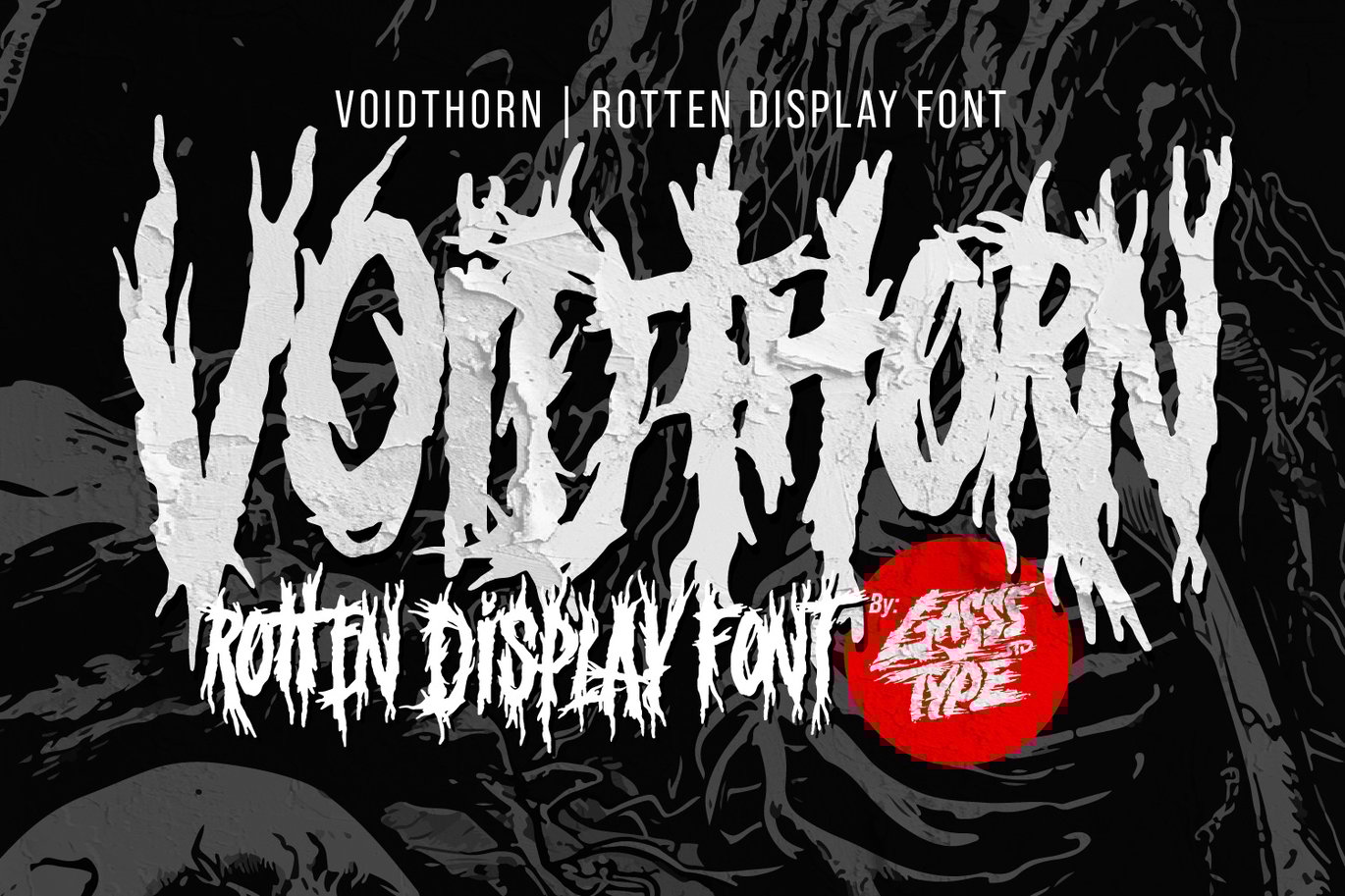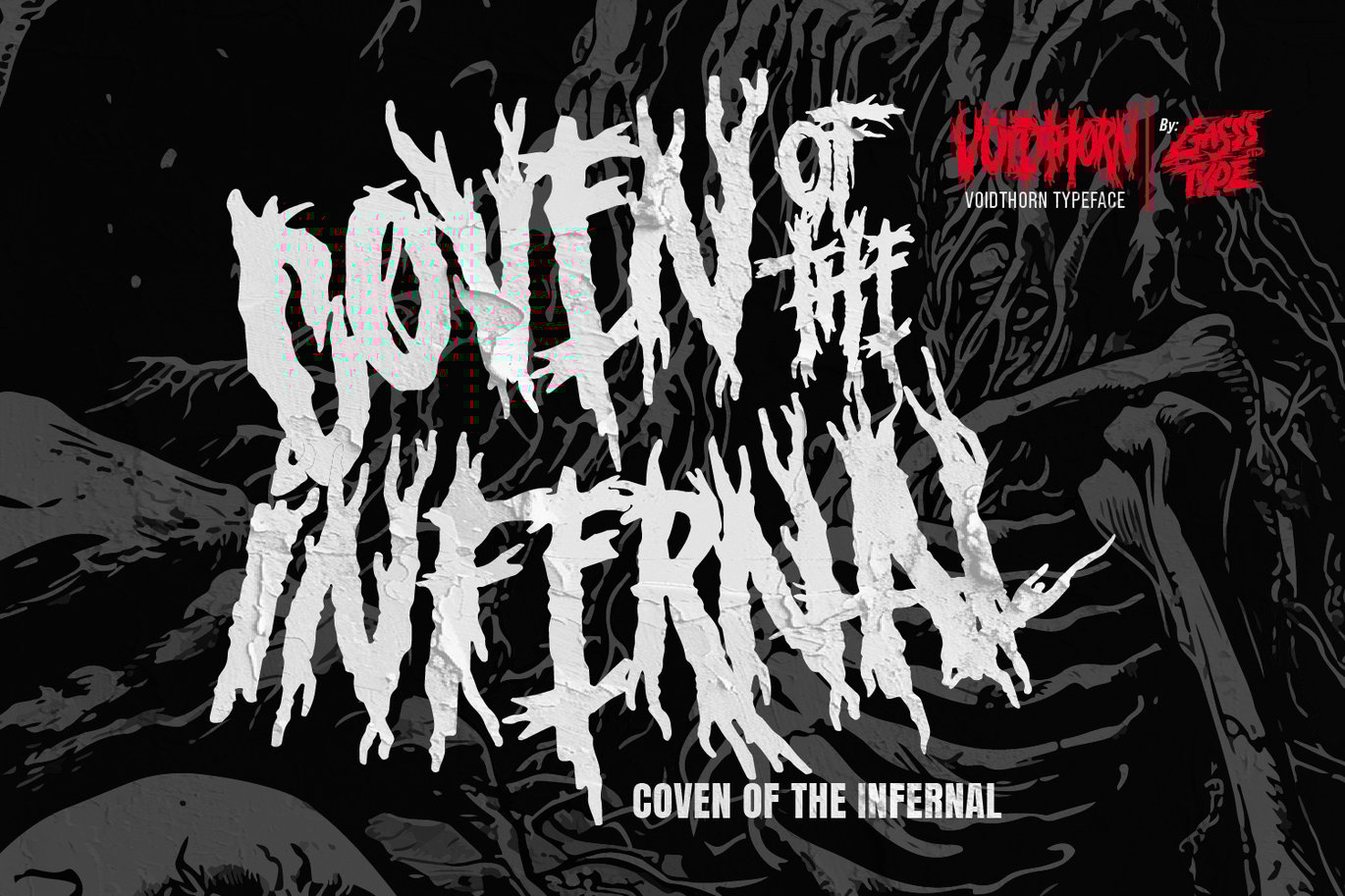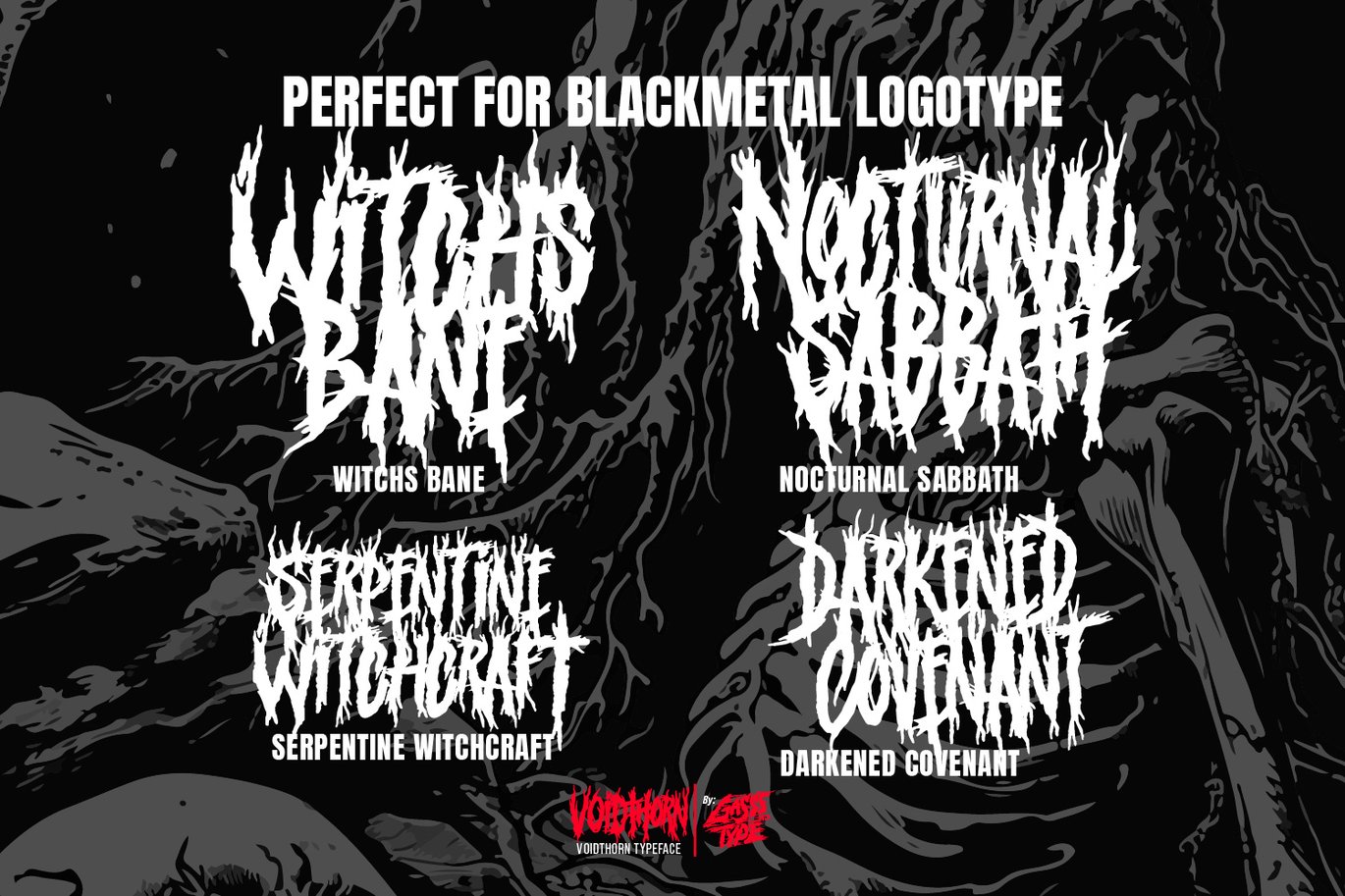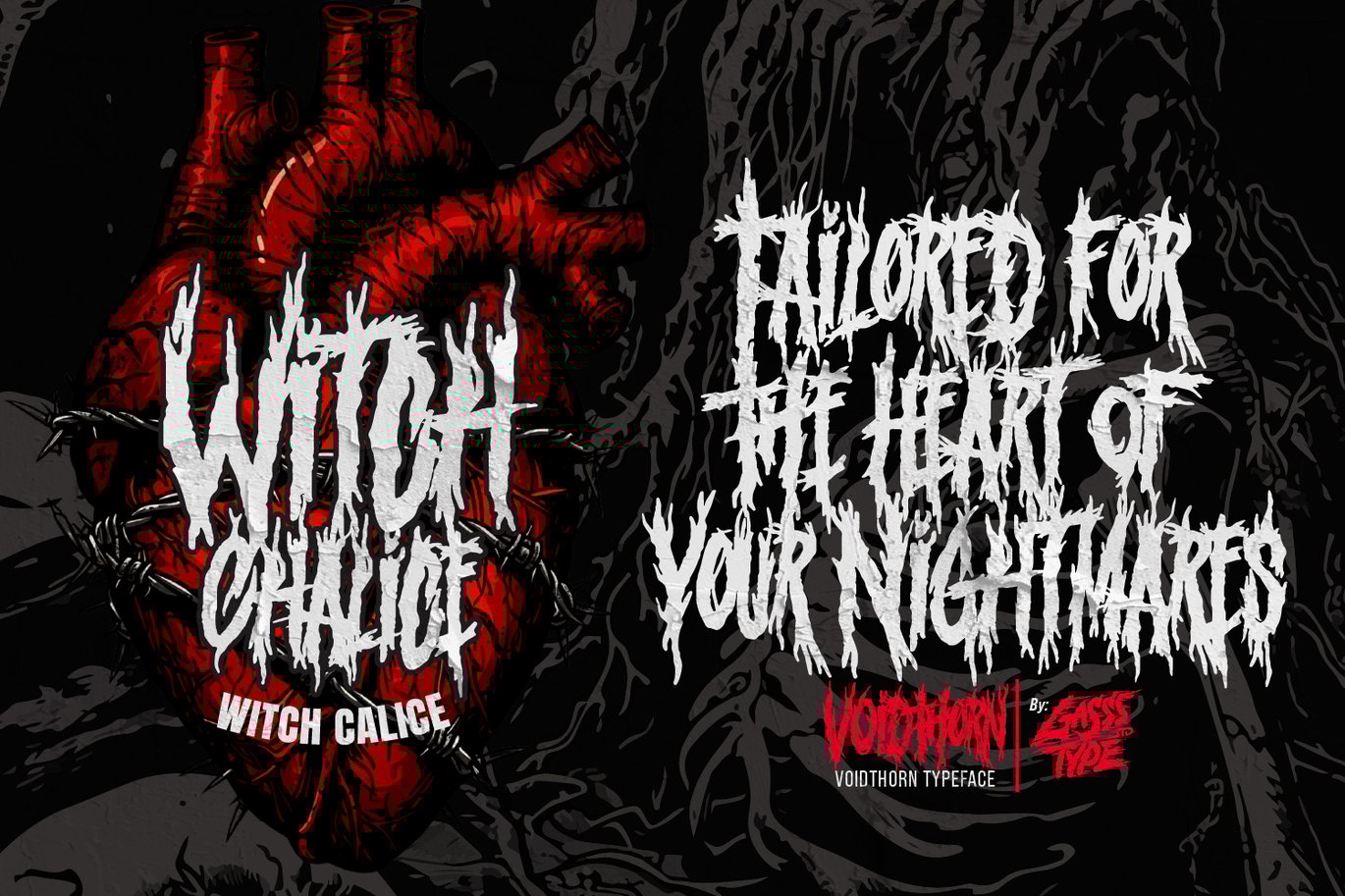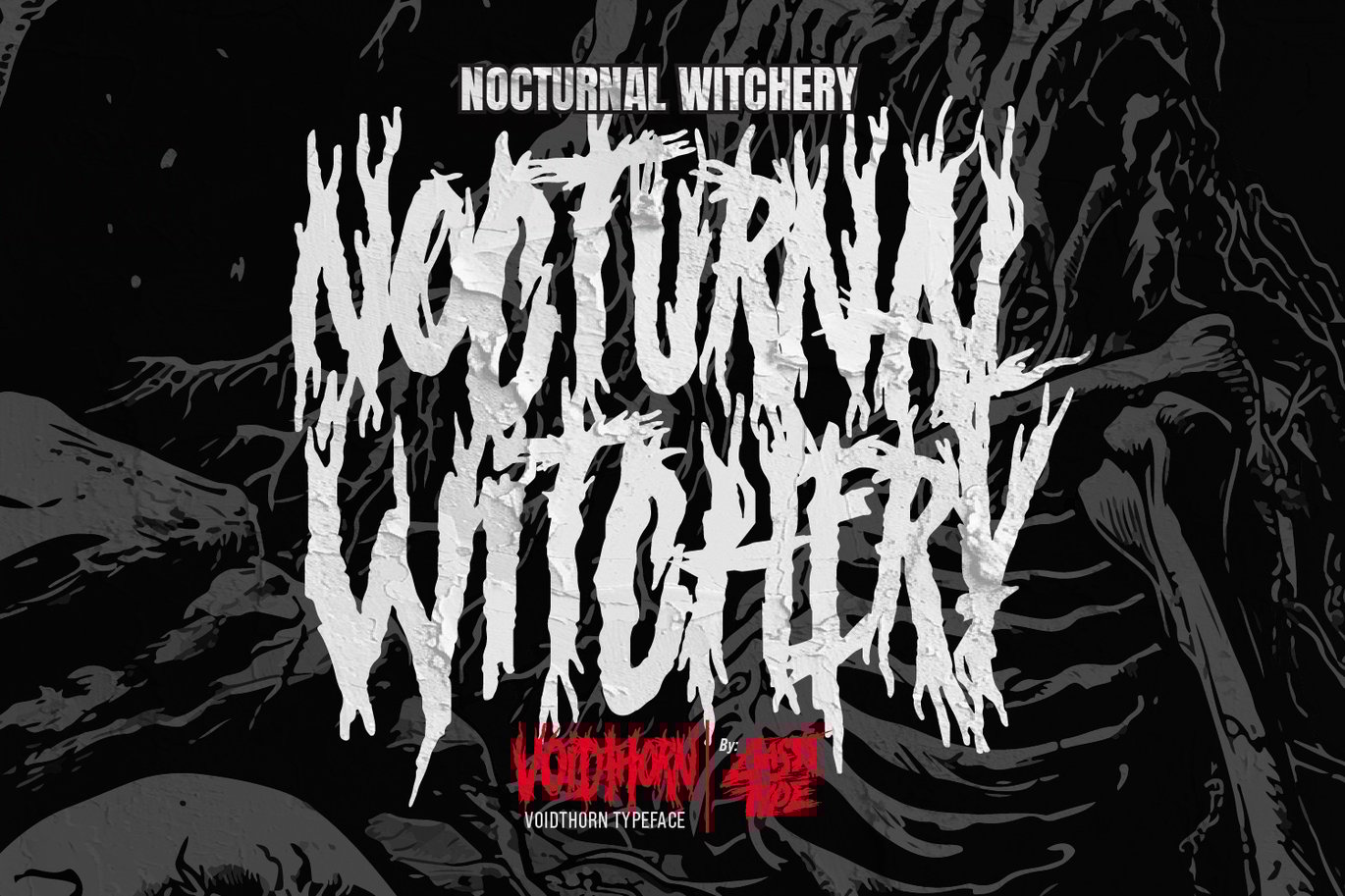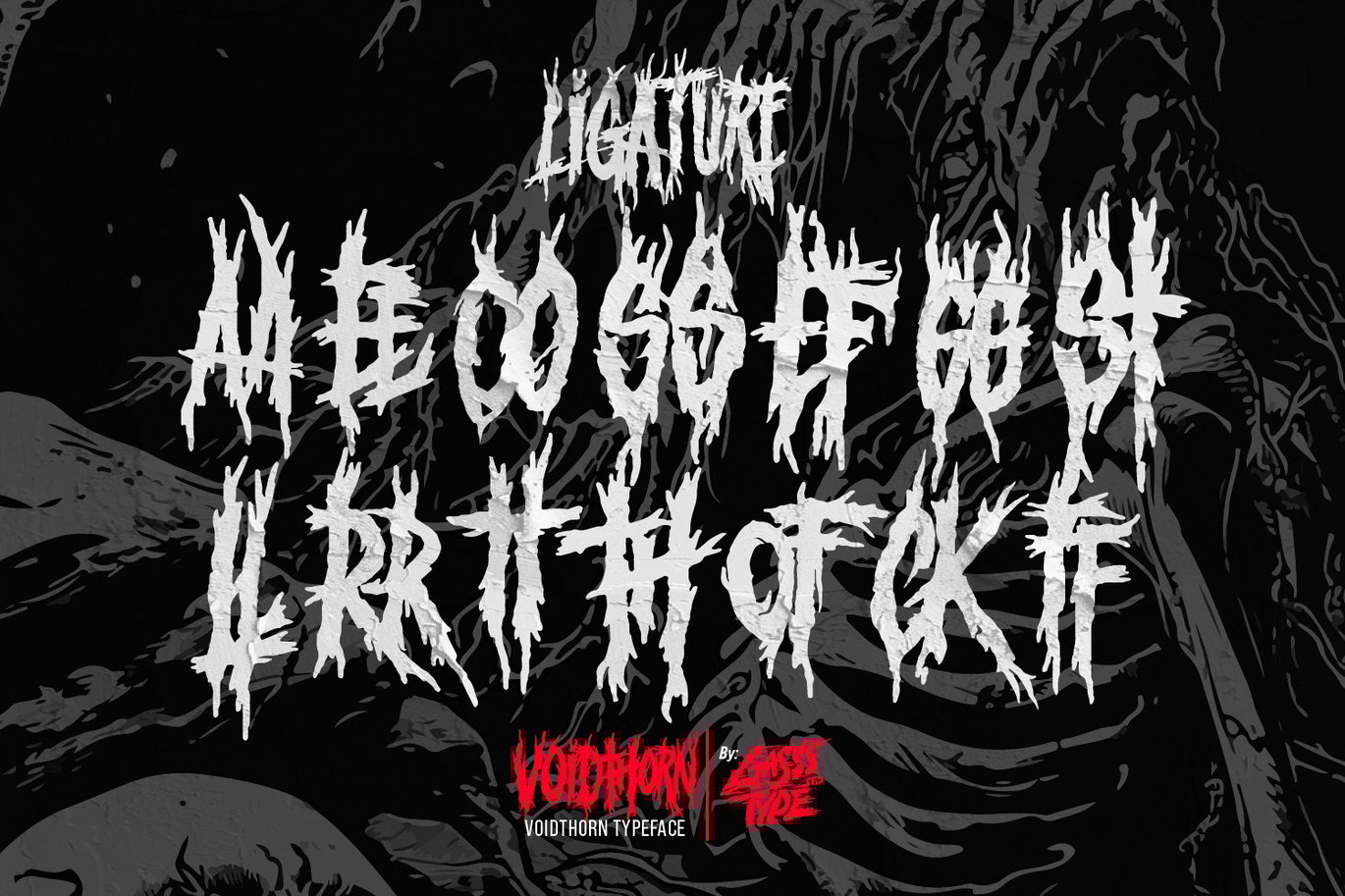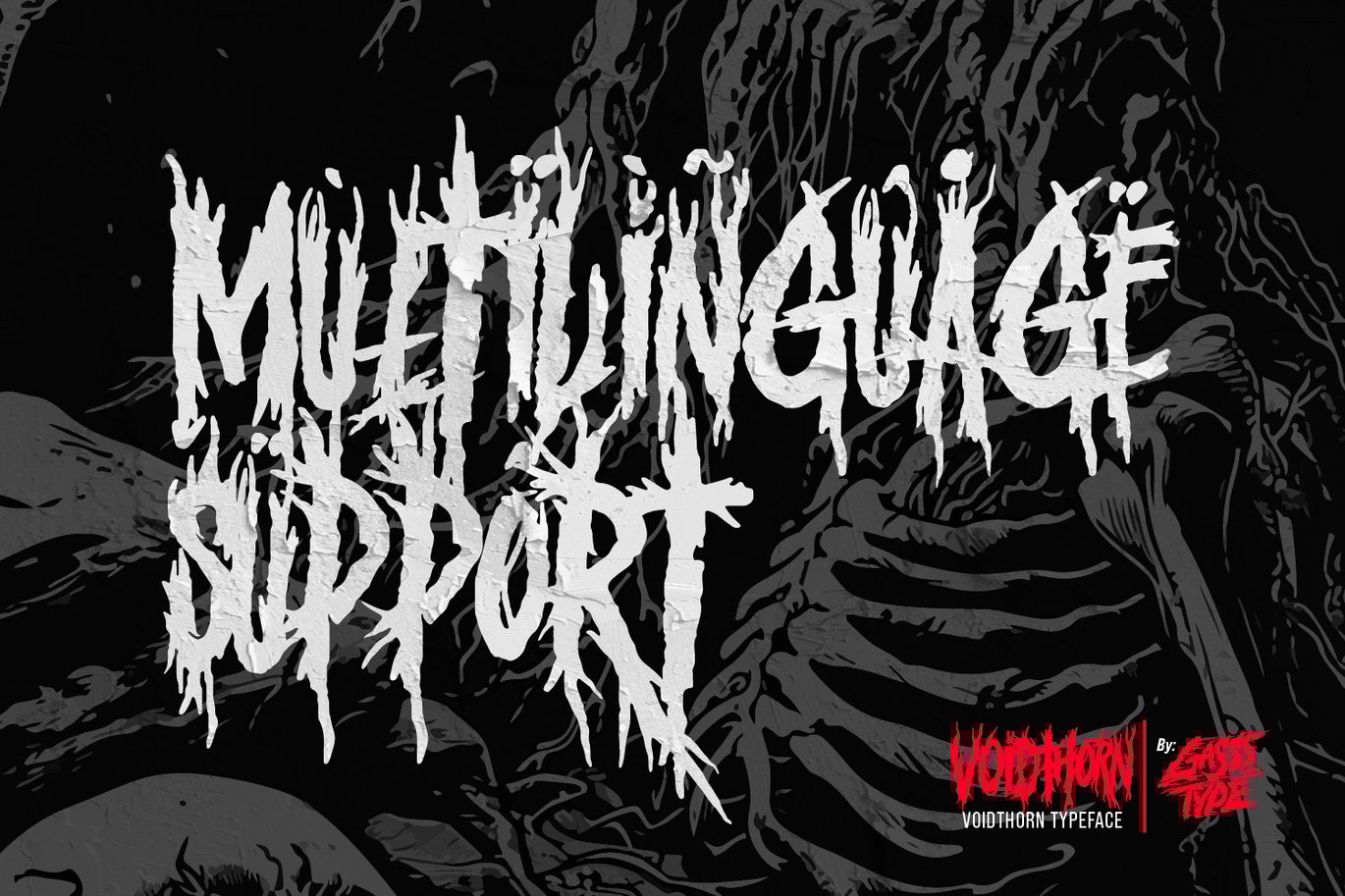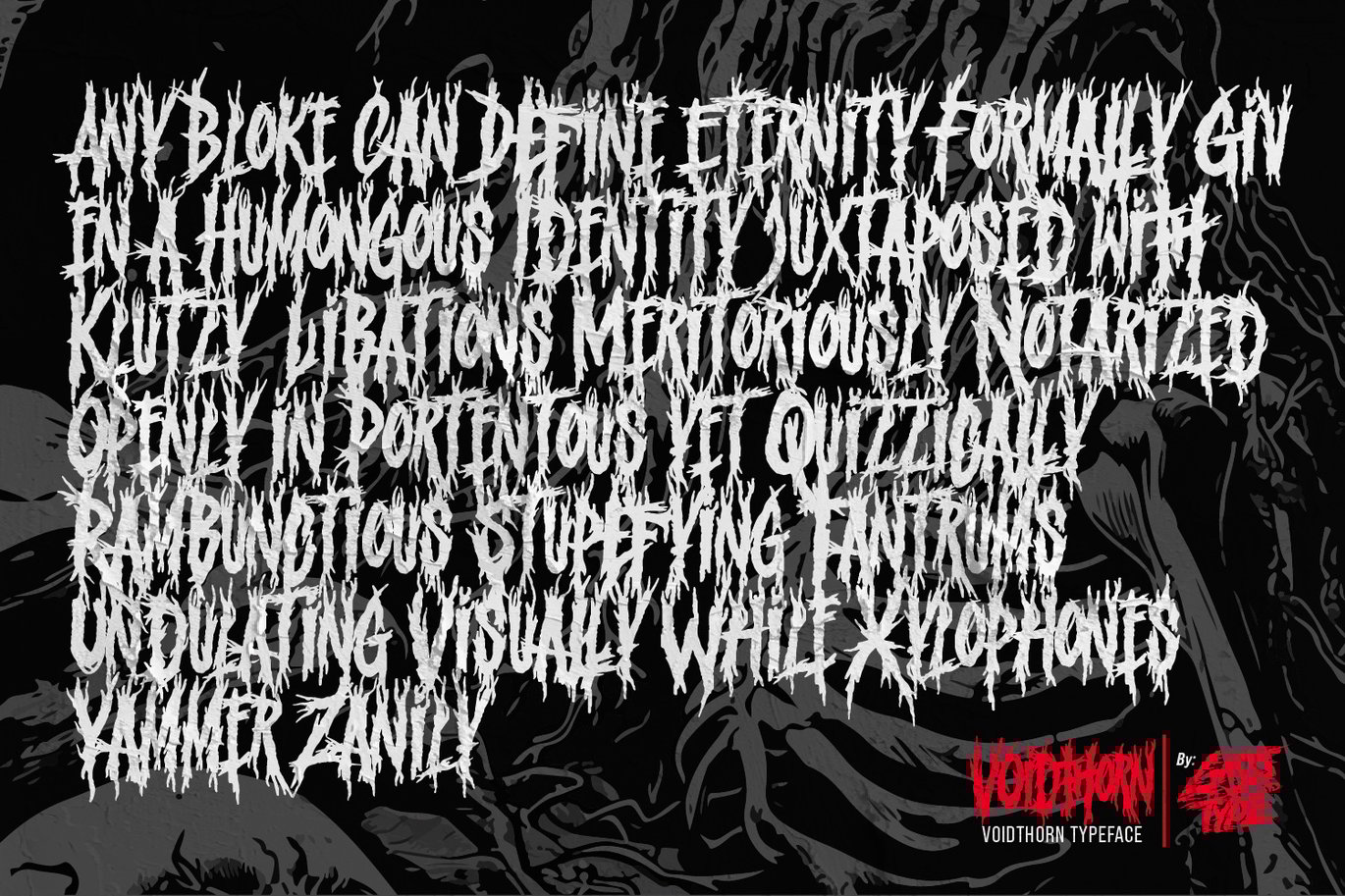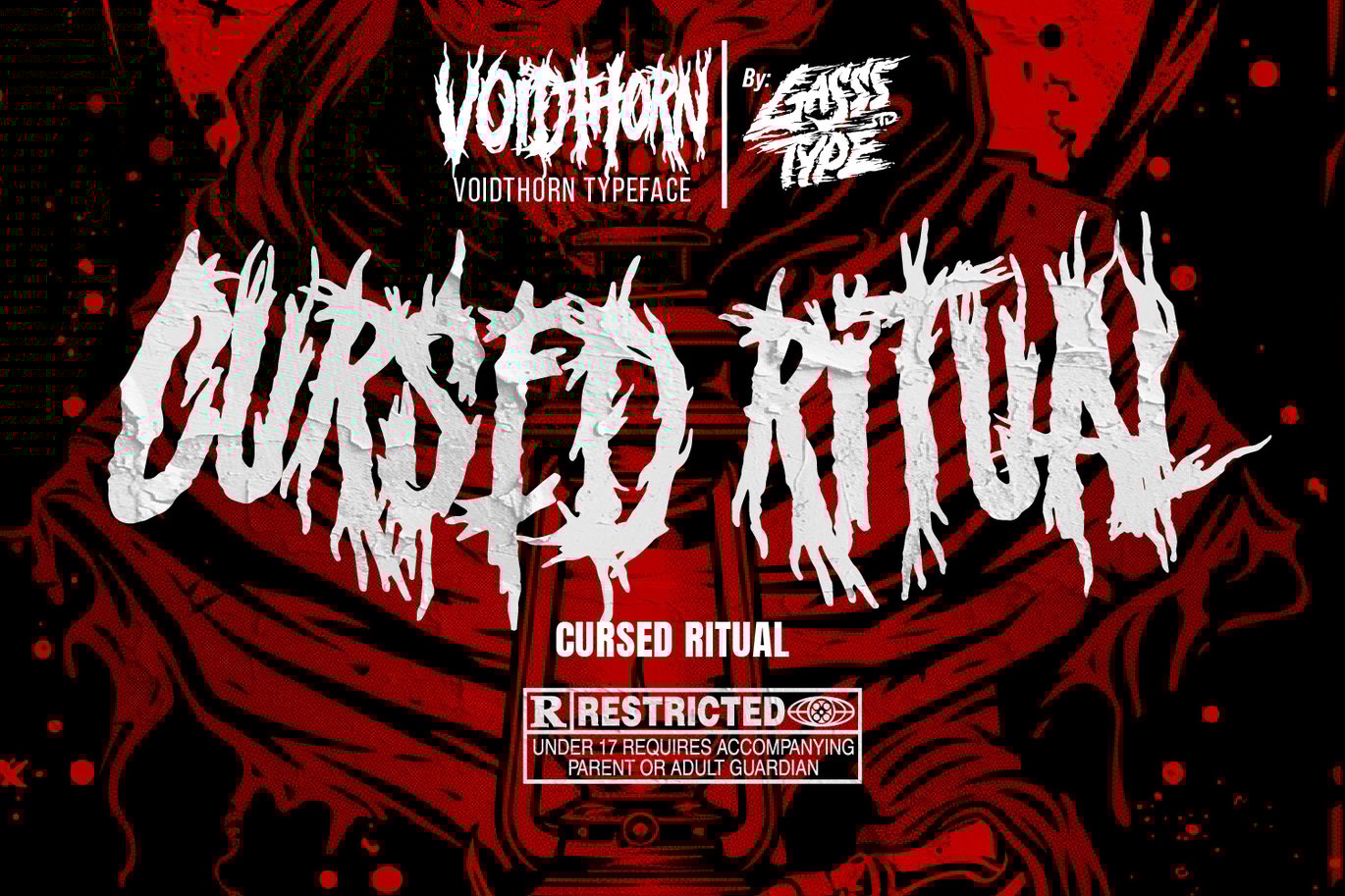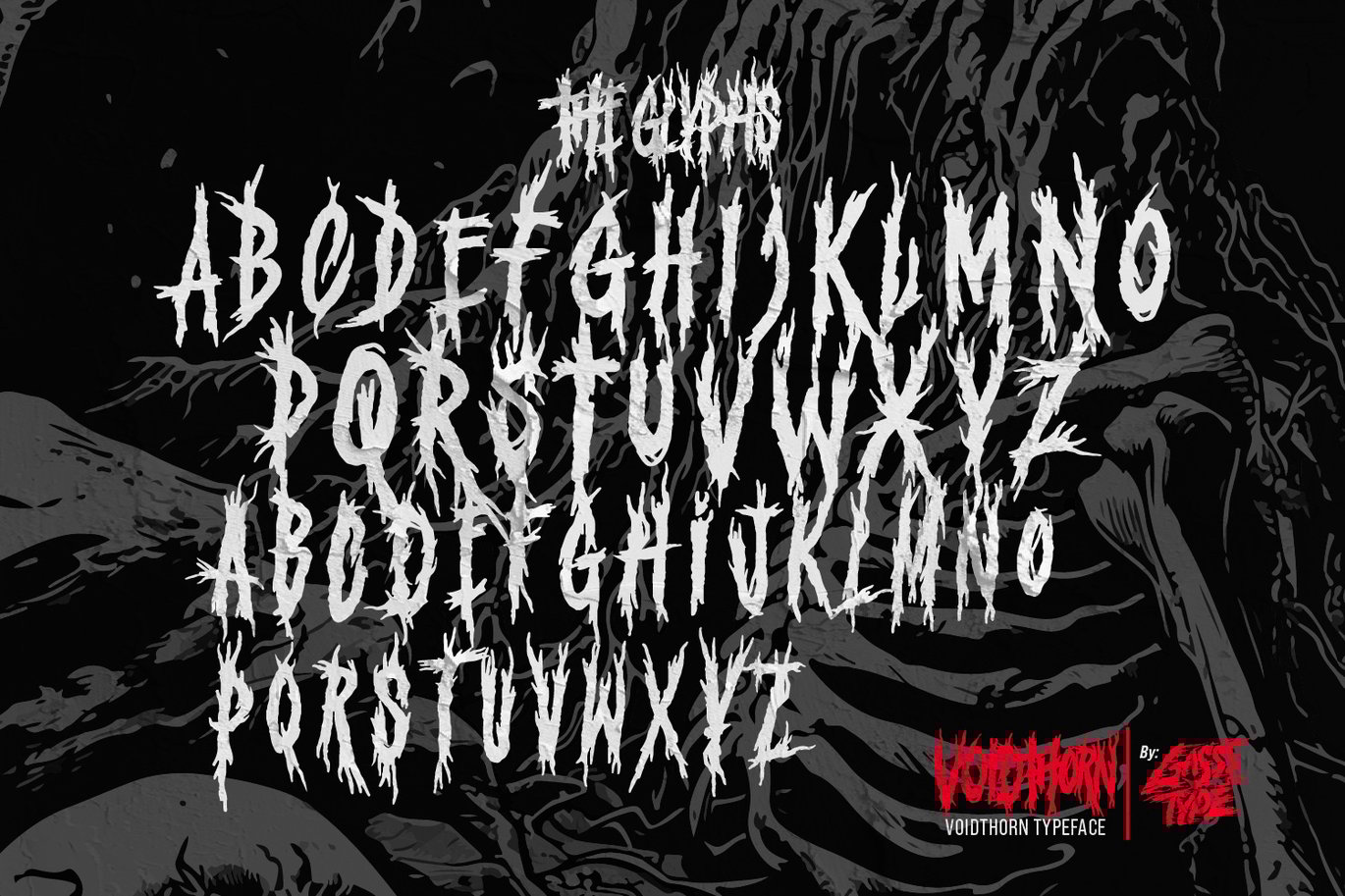
Voidthorn – Black Metal Font
Voidthorn – Black Metal Font Inspired by Rot and Roots
Dive into the abyss with Voidthorn, a black metal font that draws its inspiration from decay and the primal roots of darkness. Perfect for creating intense album covers, sinister band logos, and ominous posters, Voidthorn captures the raw essence of black metal with its jagged edges and distressed, haunting aesthetic.
Fonts include multilingual support